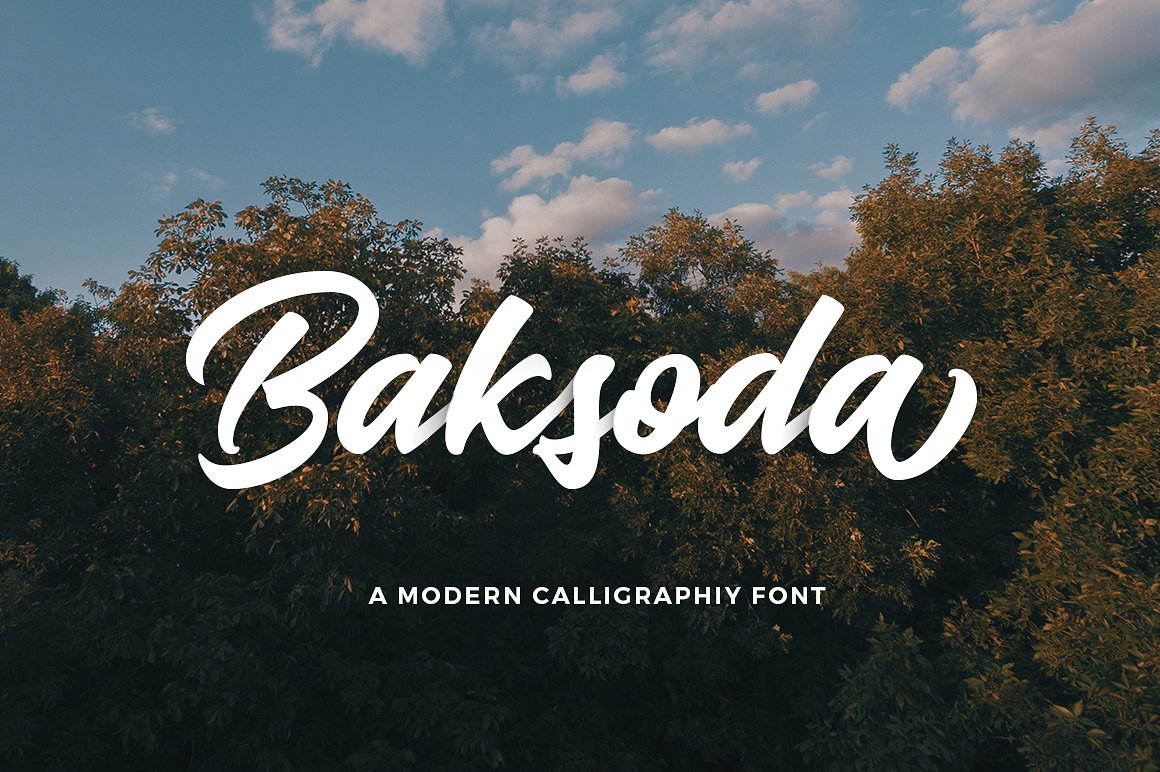
Baksoda Calligraphy Font
Baksoda is a handlettering script font with a clear style and dramatic movement this font is great for your next creative project such as logos, printed quotes, invitations, cards, product packaging, headers, Logotype, Letterhead, Poster, Apparel Design, Label, and etc.